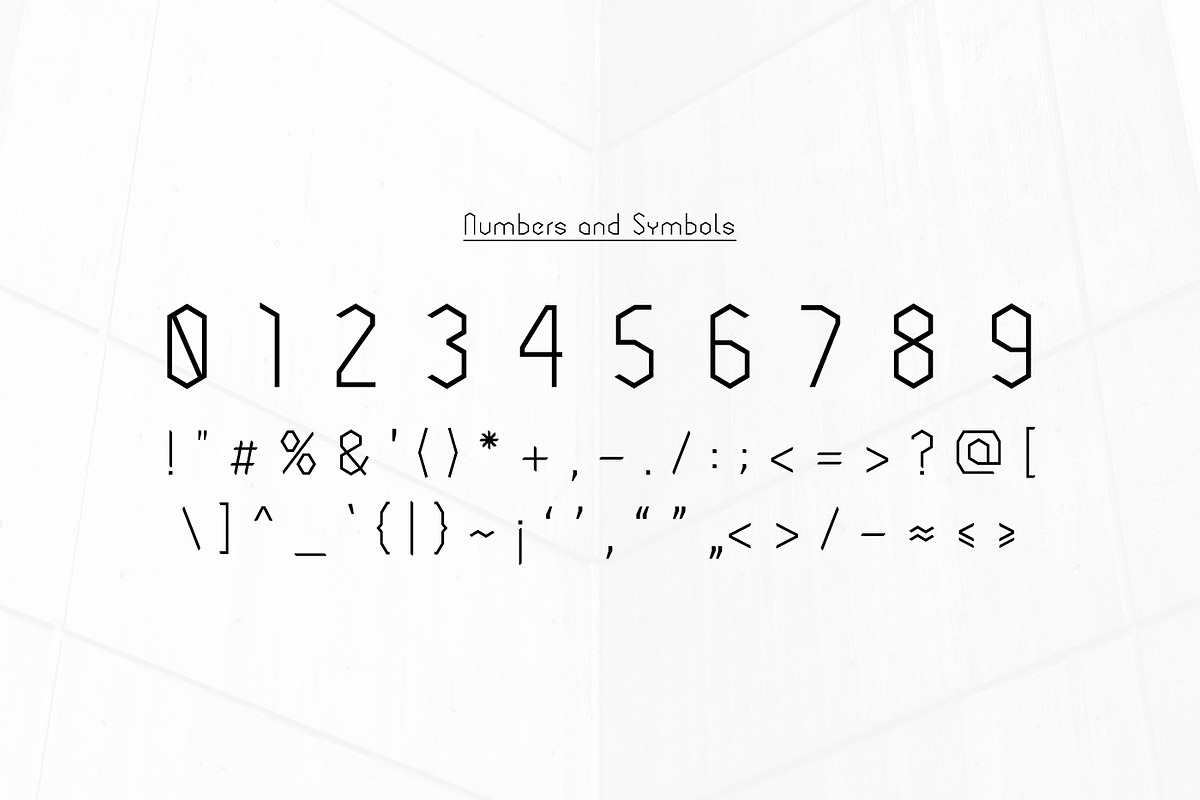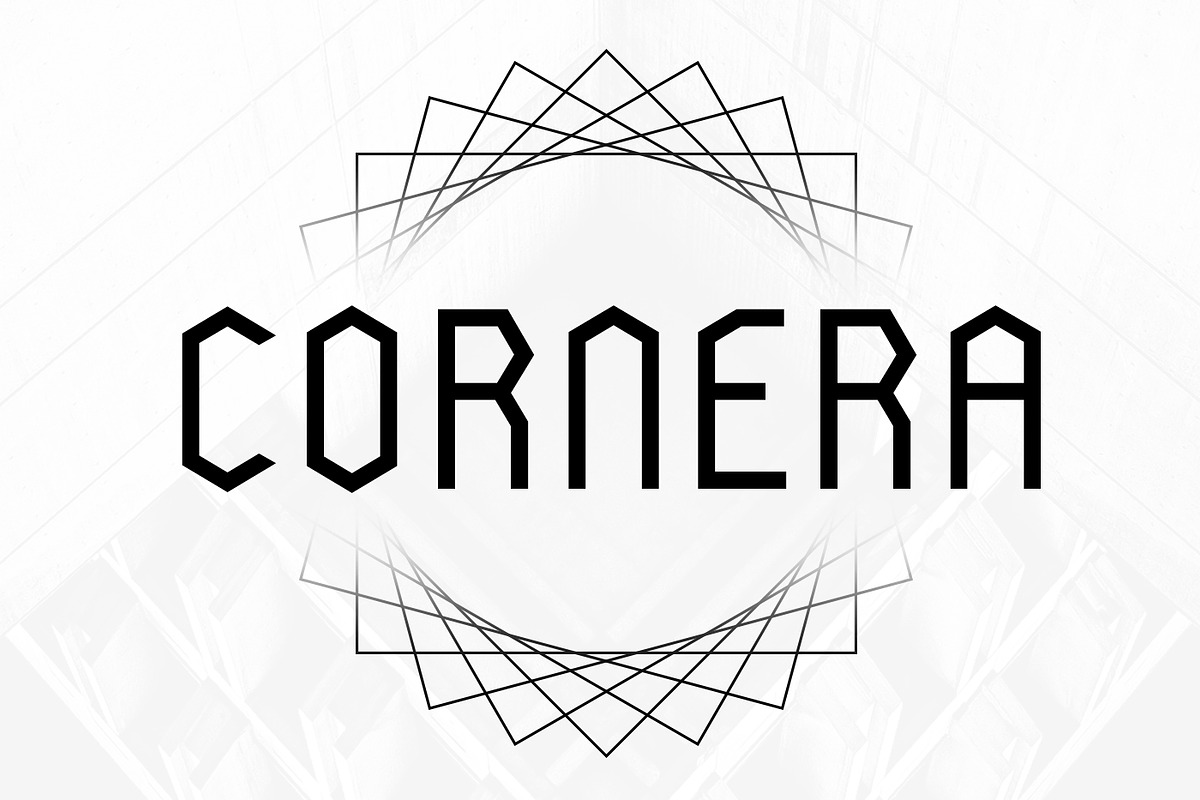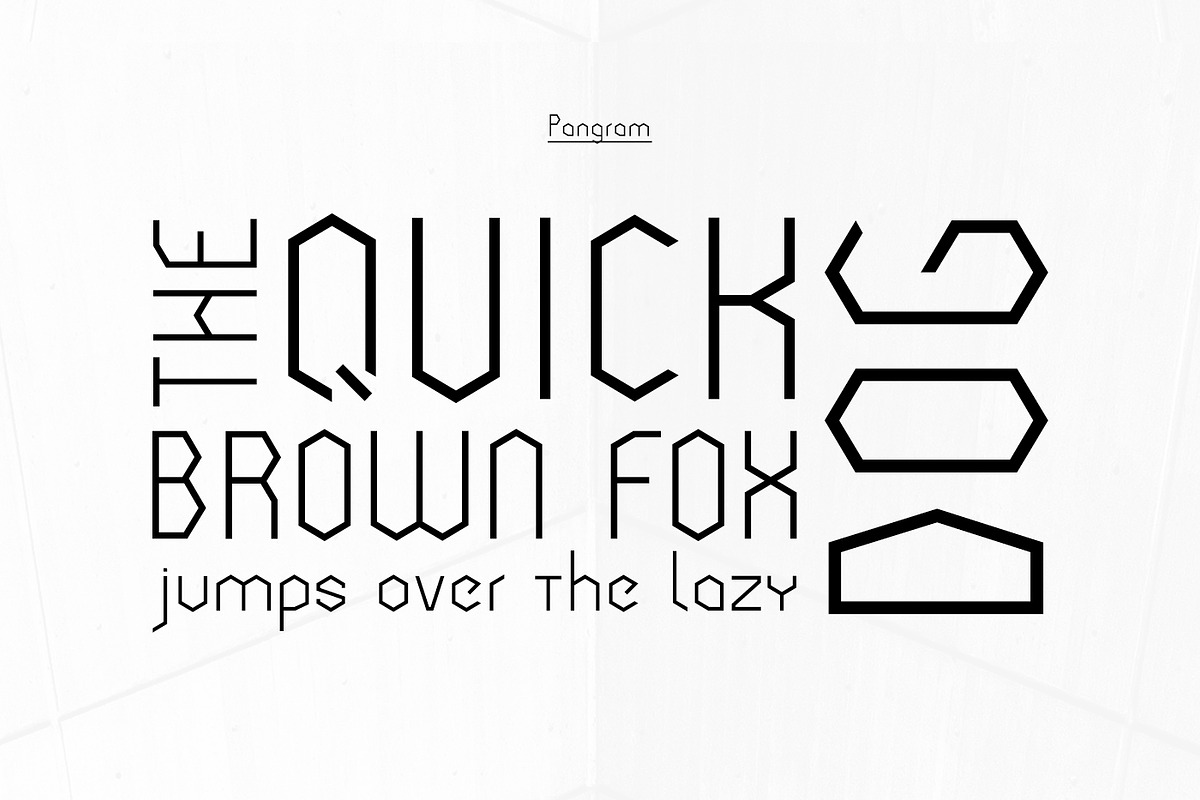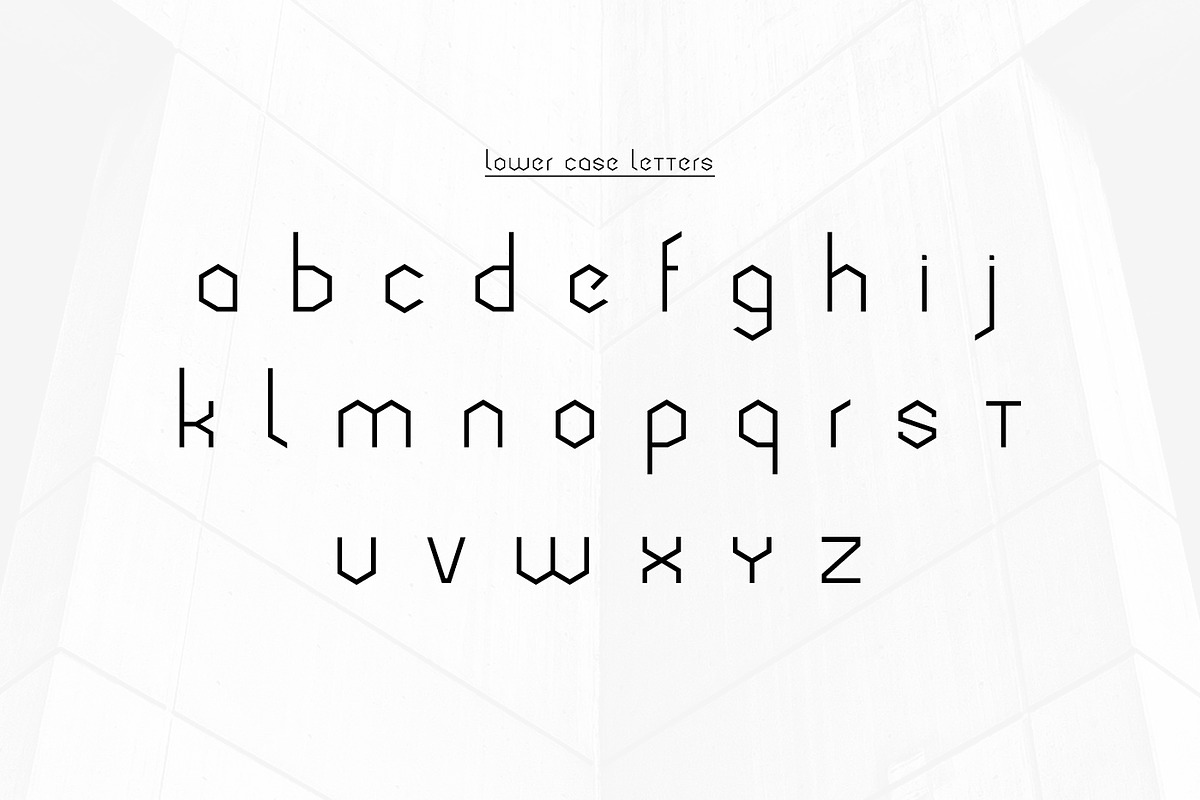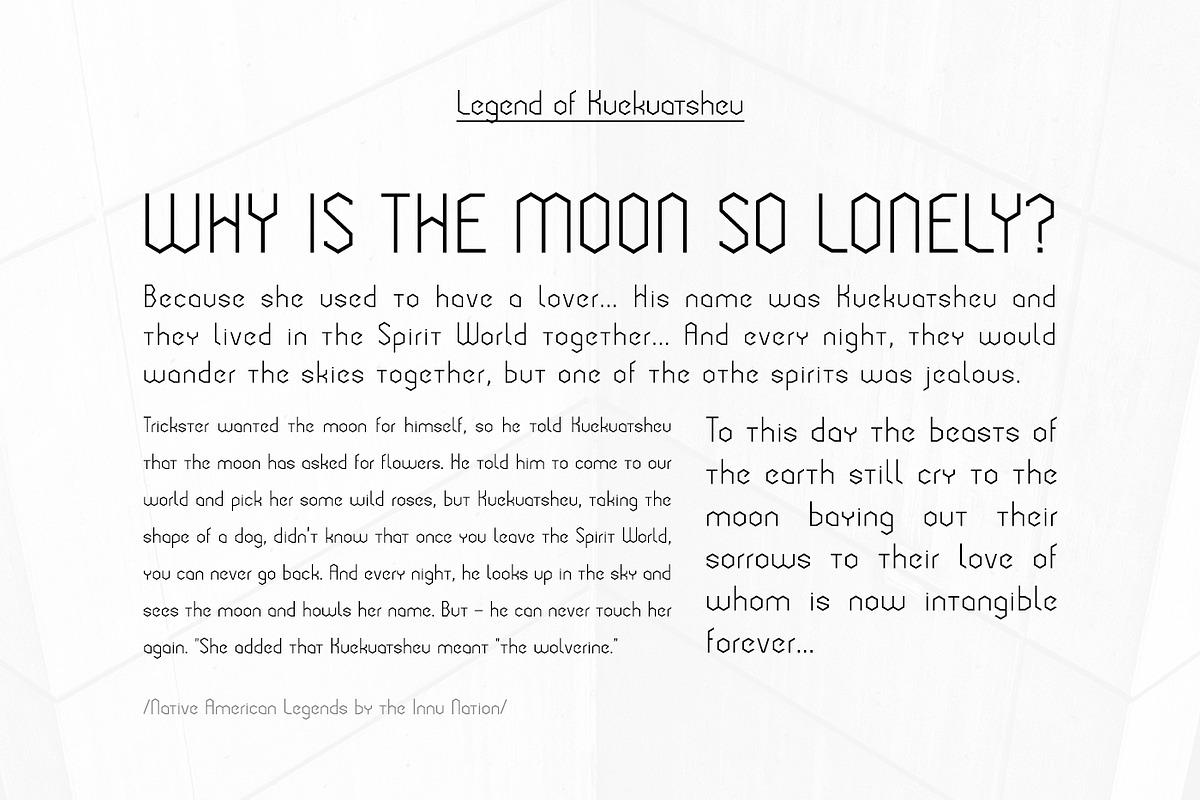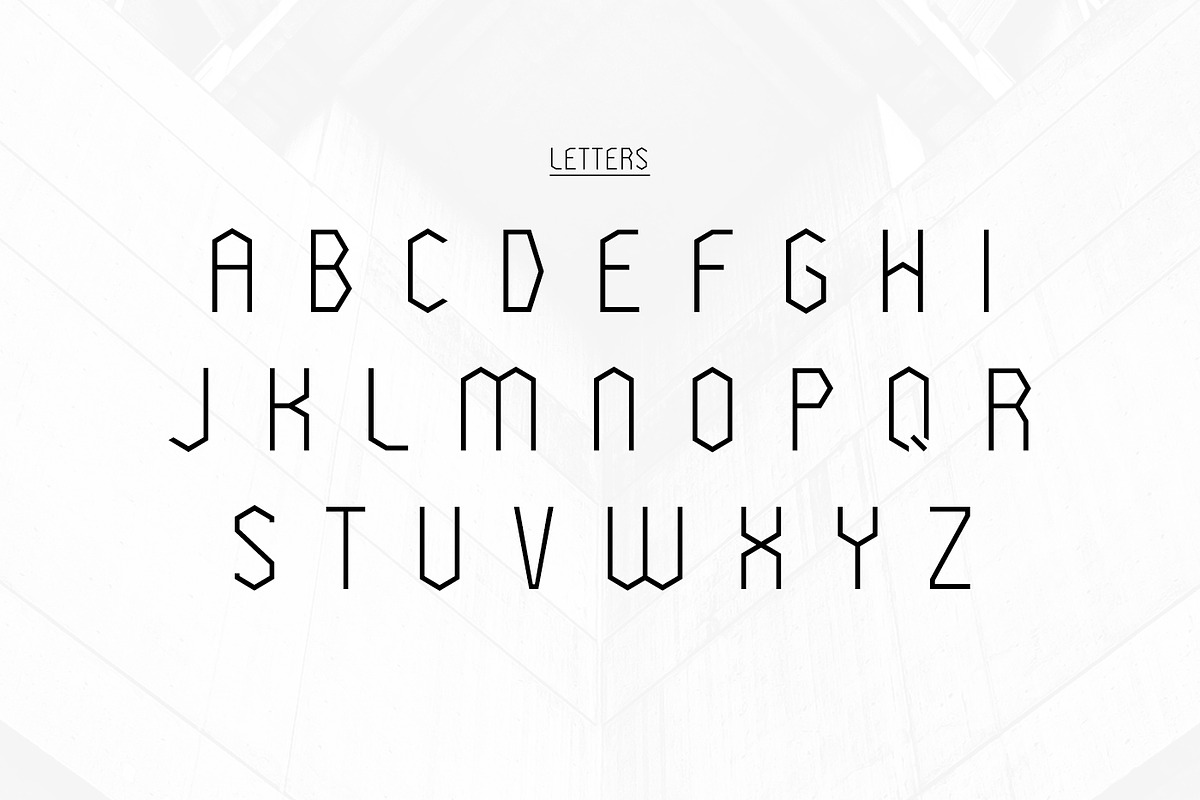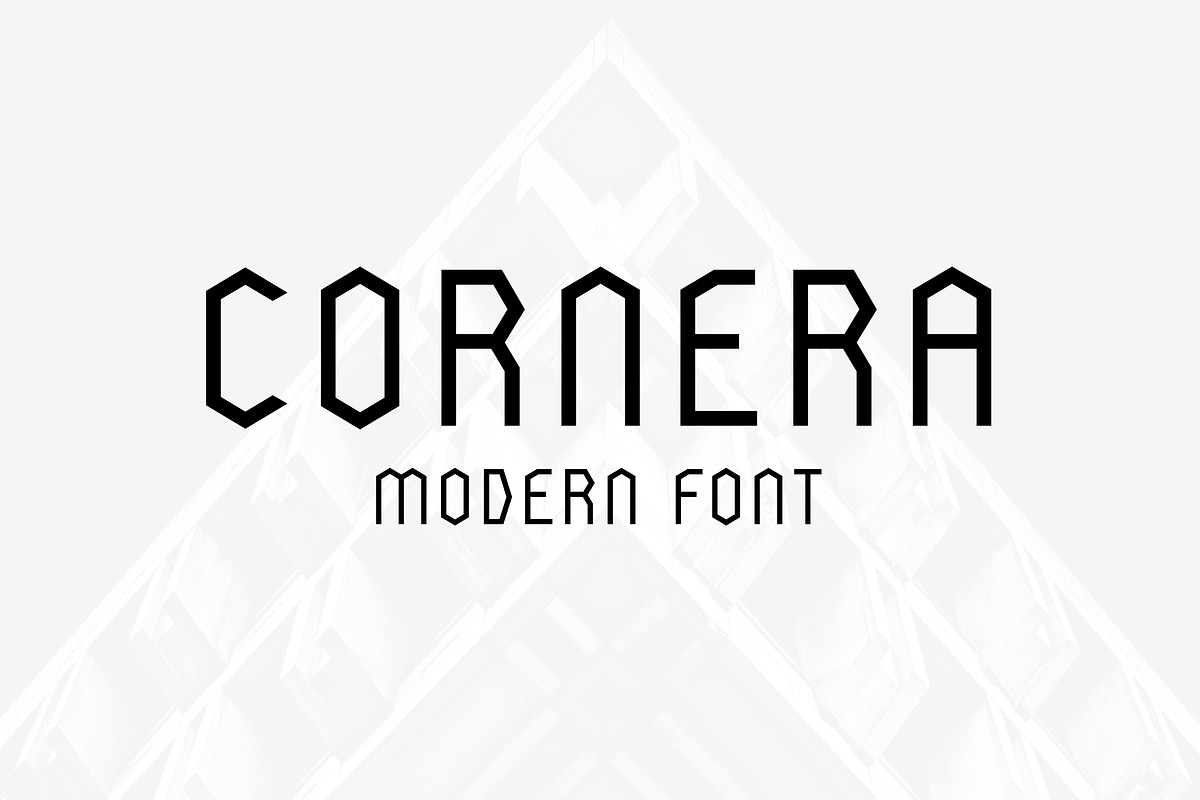
Cornera Font
The concept behind this font of course are sharp corners, and the more the better, and in end result we acheived an unique and outstanding font. It's eye catching, so it makes it self usefull for logo designs, headlines and short descriptions.